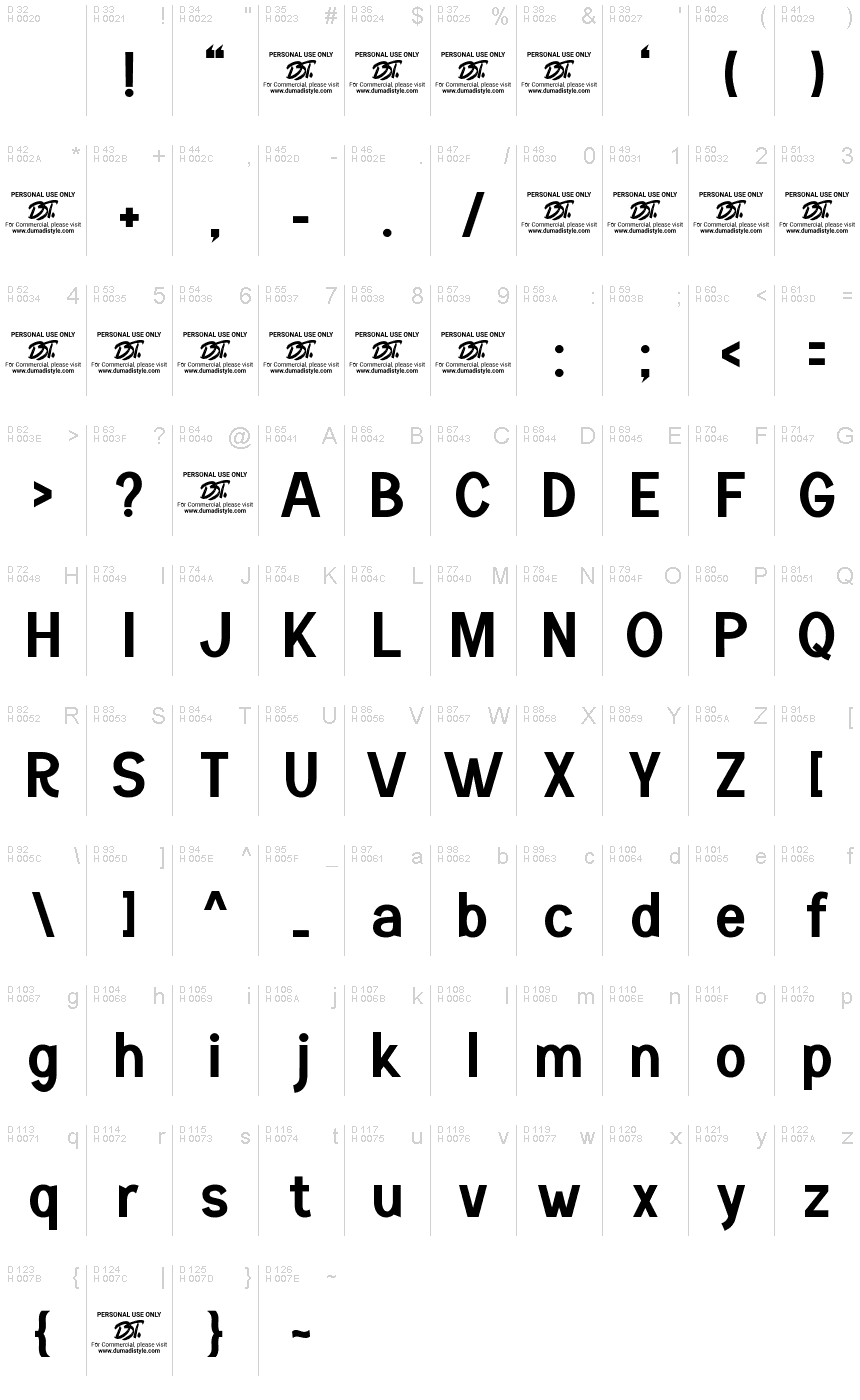
Menta Sans Bold
Menta Sans Bold is a modern and stylish typeface designed by Toni Dzulham. The bold weight of this font makes it perfect for headlines, titles, and logos that require a strong impact. With its clean lines and geometric shapes, Menta Sans Bold is suitable for various projects such as branding, packaging design, posters, and web design. This versatile font can convey a sense of professionalism or playfulness depending on how it is used. Its bold width makes it stand out among other sans-serif fonts making your message clear and memorable. Give your designs a bold statement with Menta Sans Bold!